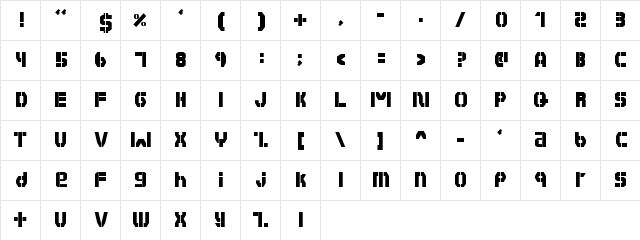
Habesha stencil Regular
Habesha stencil has the rough pragmatism of spray-painted stencil signage, adding a raw, street-level authenticity to designs.
A strong choice for packaging that needs edge, warehouse aesthetics, and rough-and-ready visual identities.
Pro Tip: Use Habesha stencil at large sizes on packaging, posters, or apparel where the stencil cutaways read clearly. Avoid small sizes where those gaps become visual noise.